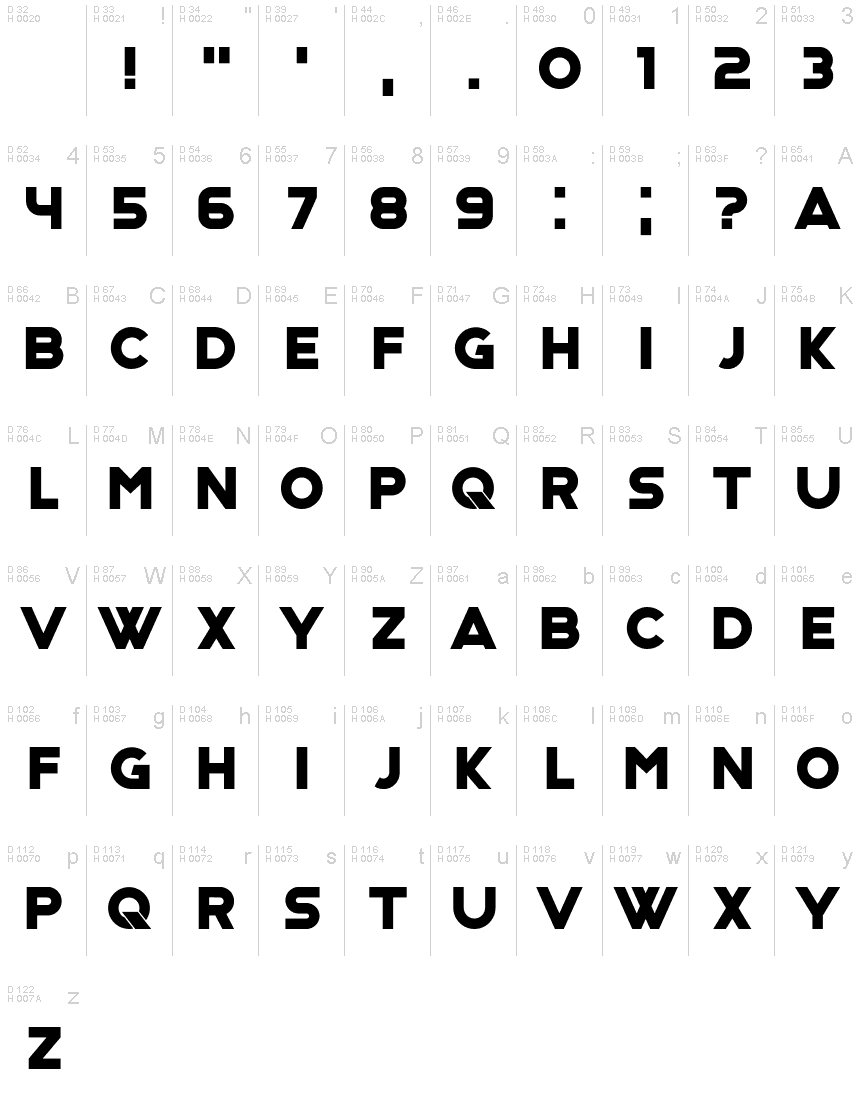
Changes Regular
Changes, a bold and expanded sans serif font designed by Vladimir Nikolic, unleashes a wave of modernity and versatility.
With its strong presence and wider letterforms, this font is ideal for creating impactful headlines, eye-catching logos, and attention-grabbing posters. Its sleek design exudes confidence and professionalism, making it a perfect choice for corporate branding materials. Additionally, Changes adds a contemporary touch to websites, enhancing readability while making a lasting impression on visitors.
Let this dynamic font transform your projects into bold statements that demand attention.